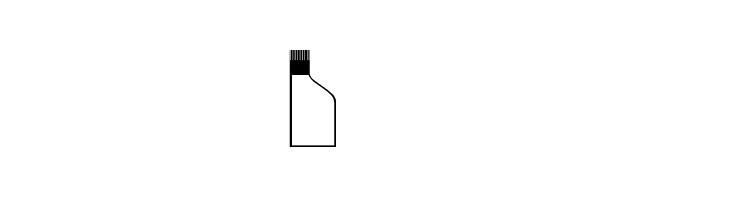
Hand-drawn decorative font with feminine hygiene and self-care icons.
A hygiene-themed pictogram display font using grooming icons as characters.
Bold, high-contrast hygiene and cleaning pictogram icon set.